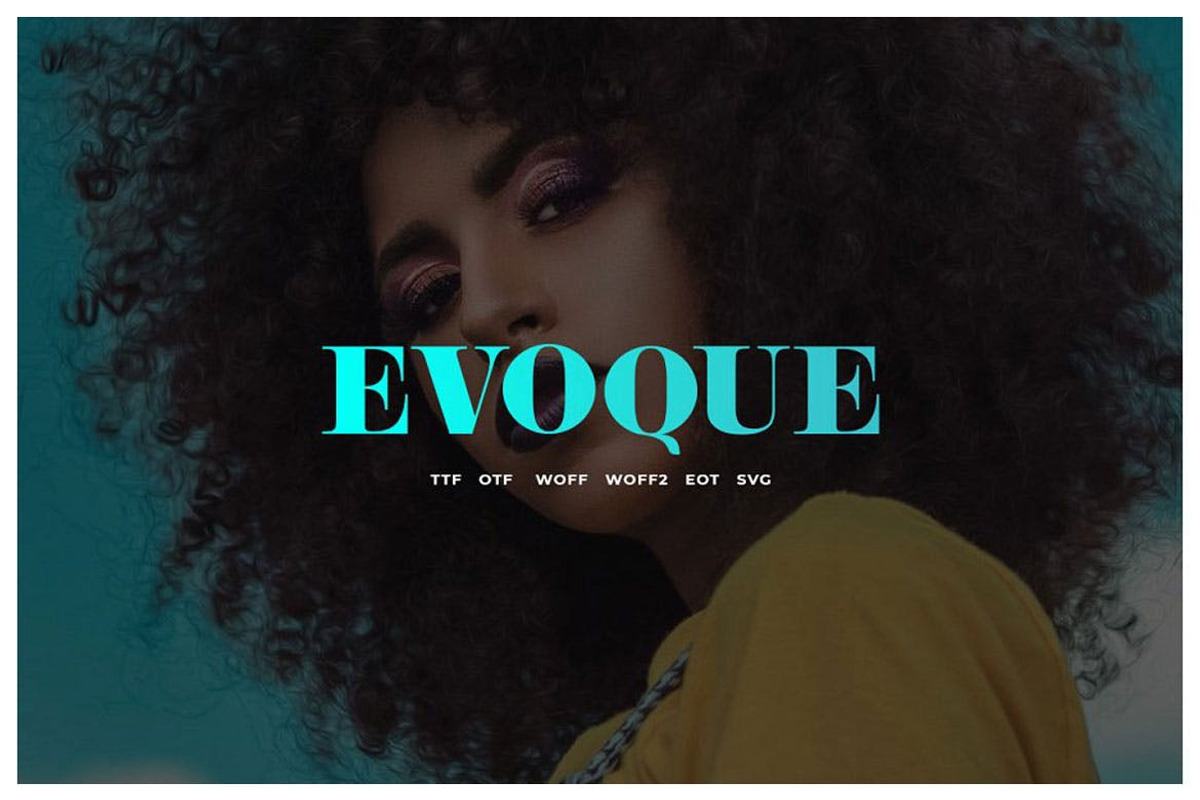
Evoque : vintage serif font family
Evoque is an uppercase serif font family.
Create bold and beautiful headlines and elegant designs with a vintage touch. Evoque's eye-catching lines and curves give a smooth, rich look to logos, festival cards, wedding cards, quotes, posters, and more.
Create something beautiful today with Evoque Alpha.